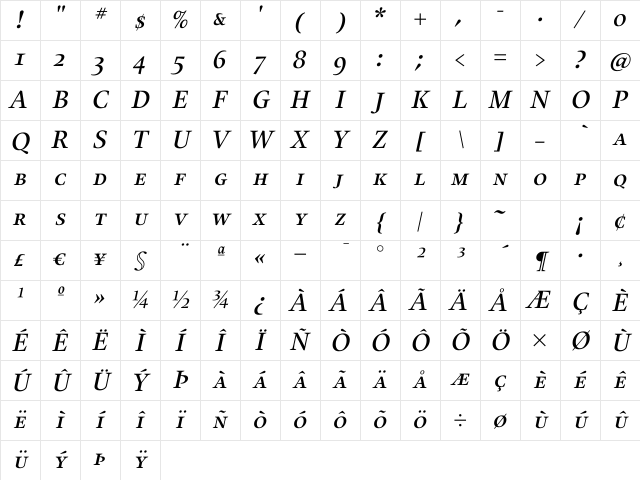
Alias UnionSC Medium Italic Regular Free Font
Alias UnionSC Medium Italic Regular
Design Context for Alias UnionSC Medium Italic
Alias UnionSC Medium Italic is a composed and adaptable typeface that performs quietly and consistently across a wide range of design contexts. The slanted form adds forward momentum and visual energy.
Pro Tip: Use Alias UnionSC Medium Italic for emphasis, pull quotes, and subheadings where its slanted energy can add rhythm to the layout.